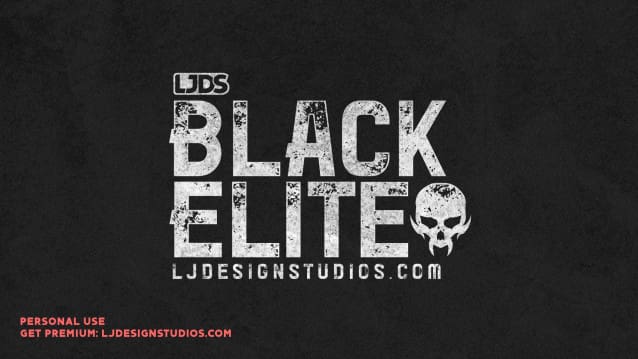
Black Elite Font
Black Elite Font, is a style typography with two styles: Regular and Grunge, designed as part of a collection for eSports fonts by LJ Design Studios, it has a simple and modern appearance that combines alternatives in its character map in aesthetic glyphs to decorate the words. It is perfect for designing player logos, allusive covers and much more.